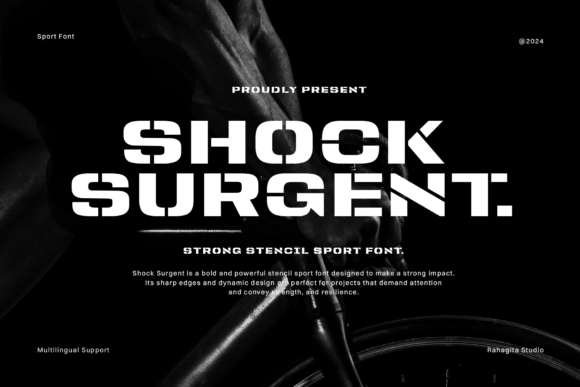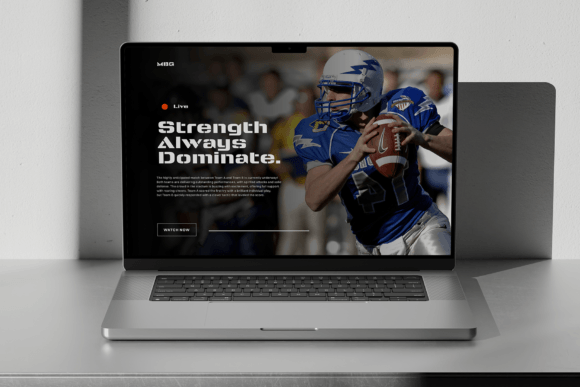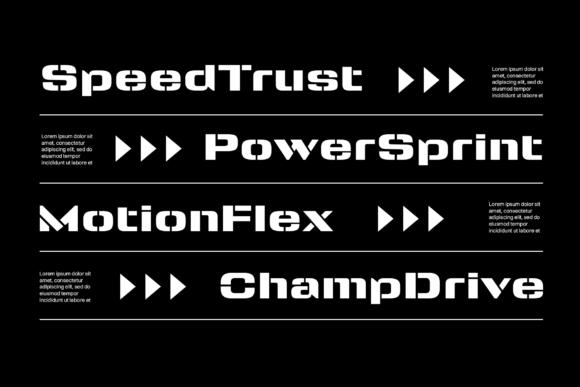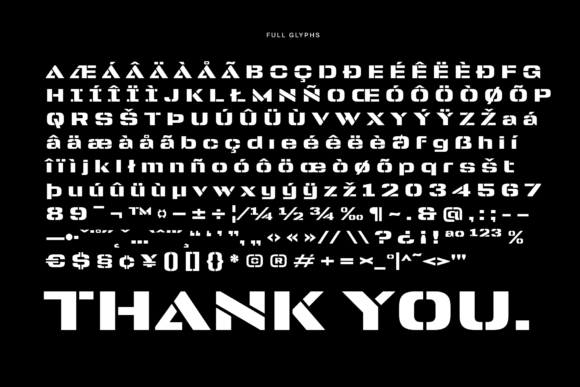
Shock Surgent Font
About the Shock Surgent Font
Let us introduce you to Shock Surgent Font, where timeless design meets modern craftsmanship. Immerse yourself in the robust charisma of Shock Surgent, a daring stencil sports font designed to leave an indelible impression. This formidable typeface, with its razor-sharp contours and vigorous design, are ideal for projects requiring a commanding presence. Its inherent strength and resilience ensure your content not only grabs attention but also resonates with enduring impact. Harness the power of Shock Surgent to make your designs scream vitality and strength.